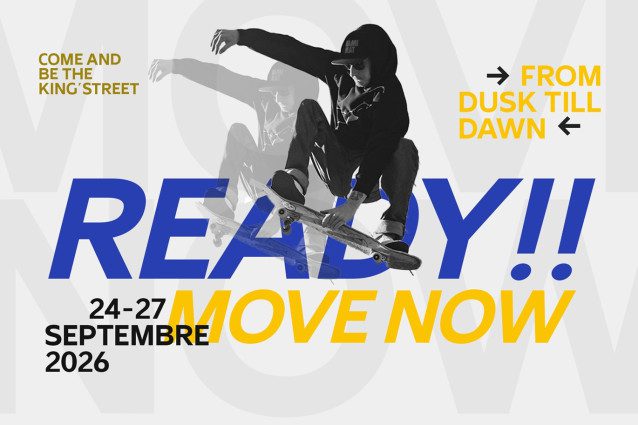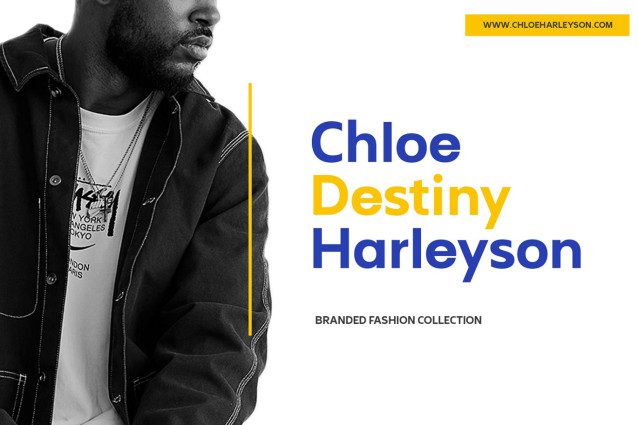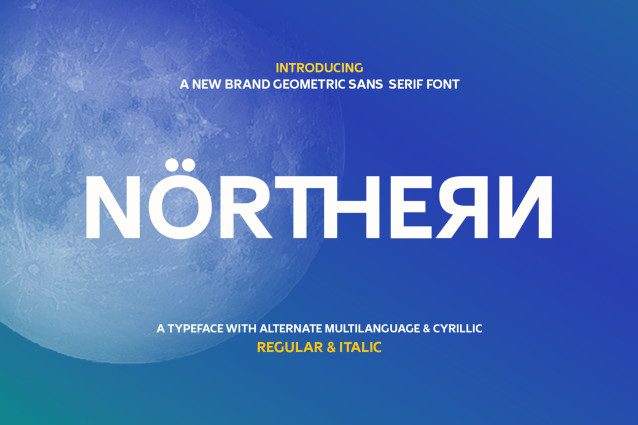
Nothern Sans Serif Font
Northern Sans Serif Font is a modern sans-serif font with a clean, geometric, and functional design. Created to be bold yet flexible, this font combines balanced letterforms with subtle details that give it a professional and contemporary feel.\